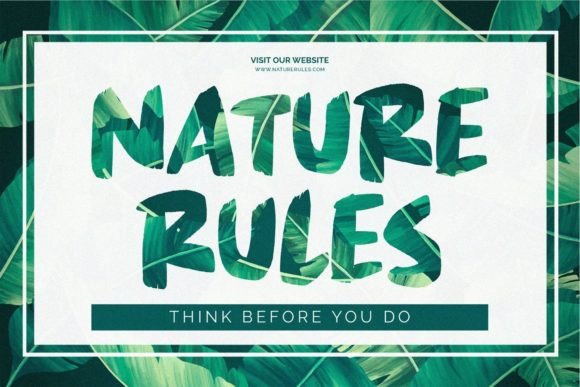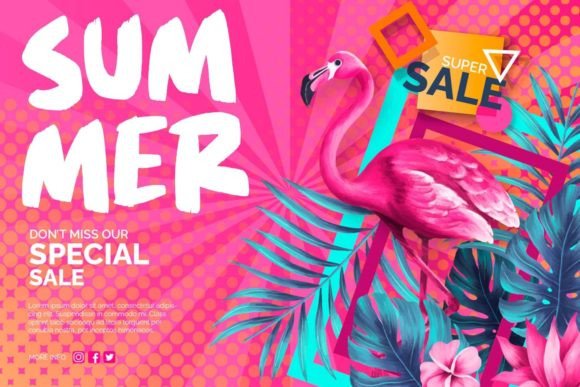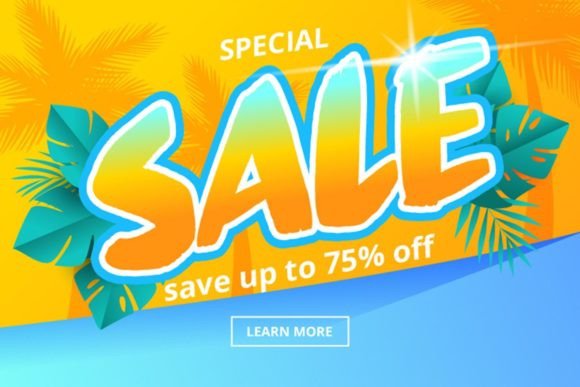
Introduction to Great Paradise Font
Imagine you’re brainstorming ideas for your next creative project, and suddenly, a spark of inspiration hits you. You envision a bold, eye-catching logo that captures the essence of your brand. For designers, this moment is a thrill – but it can also be a challenge. That’s where the Great Paradise Font comes in – a game-changing design resource that’s about to revolutionize your creative workflow.
This stunning display font exudes an authentic and playful feel, making it perfect for branding, logo designs, and other high-quality projects. With its unique style and versatility, the Great Paradise Font is an invaluable asset for designers looking to elevate their work. Whether you’re working on a magazine cover, a poster, or a t-shirt design, this font is sure to impress.
Key Features of Great Paradise Font
- High-quality, elegant design perfect for creative projects, such as branding, logos, and advertisements.
- Unique characteristics include its subtle, serene aesthetic and versatility in use across various design contexts.
Honest Review: Great Paradise Font
As a designer, I’m always on the lookout for high-quality design resources that can elevate my creative projects. The Great Paradise Font is one such resource that caught my attention. I decided to put it to the test and share my honest review.
- ✨ High-quality design: The font is well-crafted and visually appealing, making it perfect for a variety of design projects.
- ⚠️ Limited character set: The font only includes a limited character set, which may not be suitable for longer text-based projects.
- ⚠️ Not suitable for body text: The font is more suited for headings and titles, rather than body text.
Overall, I’m impressed with the Great Paradise Font. While it may have some limitations, its high-quality design and free download make it a valuable resource for designers. With a little creativity, I can see this font being used in a variety of design projects.
The Great Paradise Font is a high-quality design resource ideal for various creative projects. Its transparent background and versatile style make it a perfect addition to any design.
Common Use Cases for Great Paradise Font
The Great Paradise Font is ideal for various creative projects, including:
- Branding and logos
- Infographics and presentations
- Print materials and brochures